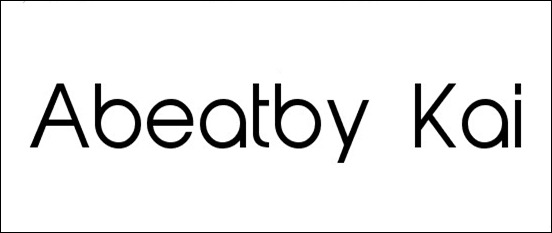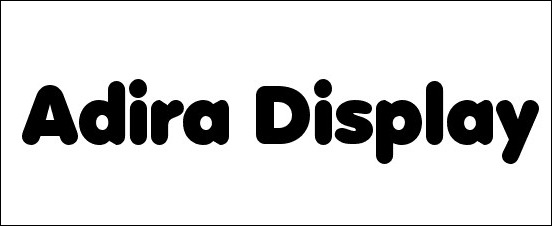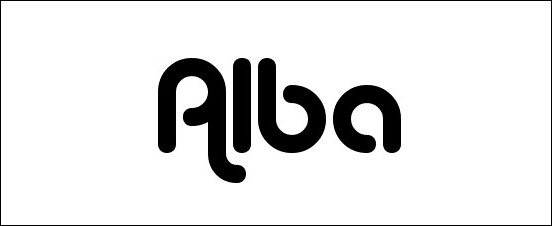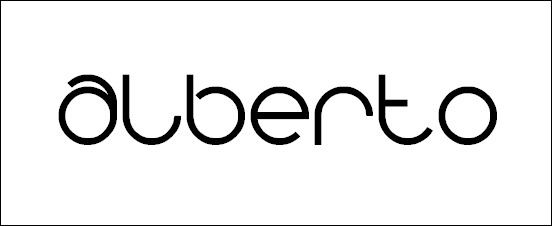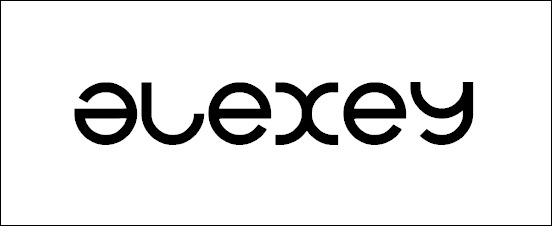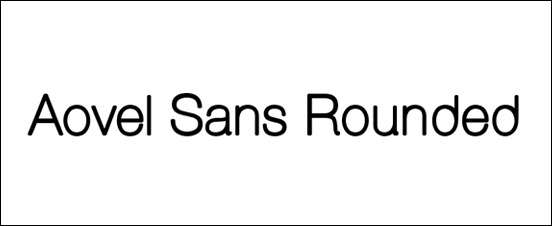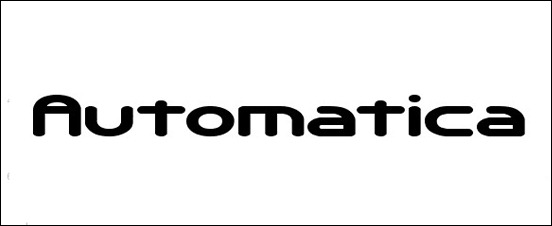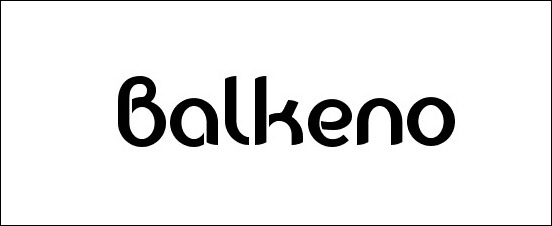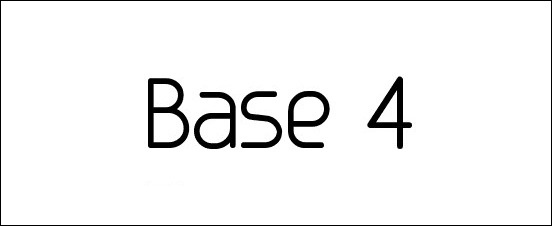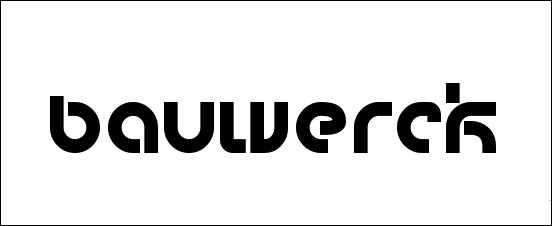
A rich showcase of fonts is a very important asset in a designer’s toolkit and so it is necessary that he should find ways to procure a varied collection of these items. This will prove useful as he will surely be working on different artworks and designs that will need a seamless match for typography, or one that complements or otherwise enhance the look of the design.
We have been showcasing fonts lately which includes those which appear to be written by hand and those which are square shaped, and today we will be sharing with you some of the rounded fonts to further enrich your library of fonts. All of these are free subject of course to some restriction, like prohibition for commercial usage, or attribution requirement in some of the fonts but nevertheless they are very easy to comply. Also, you will find a number of fonts in this showcase that allows both commercial and personal usage so you still have a lot of options if you don’t want to obtain commercial licenses. Check them out and enjoy!
Corpulent Caps
Junegull
Neo Geo
Coolvetica
Airstrip Four
Rounded
Astro
Brie
Gem Font One
Alberto
Elfar Normal G98
Plymdale
Pixochrome
Elected Office
Linesquare Rounded Extended
Alexey
Dream Orphans
Almonte
secret code
Do Not Eat This
Radius
Pollyanna
Eddie Rounded
36 Days Ago
Adira Display
Copyright Violations
Bisque
Teacher
Quadratic
Quackery
Bog Standard
Powerweld
Street Humouresque
Virgo
Drummon
internet
Abeatby Kai
Tantor
Chlorine
warren
Patinio iAgency
Base 4
Bubbleboy
Aovel Sans Rounded
Automatica
Eurofurence
Ardour
Bauwerck
Goca Logotype
Janken
Alba
Balkeno
Chumbly
Lois Ann
Gordon
Hyperion Sunset
Mountaintop Milk
LT Oksana
Familian
Monako
LaureHead
moderna
Lelim
Speedball No 1
Mute Fruit
Sonny, great list although many aren’t technically rounded. Rounded refers to the way the strokes are terminated (the ends of the strokes). E.g. Corpulant Caps and Junegull are rounded whereas Coolvetica and Brie are not because their stroke terminations are square.